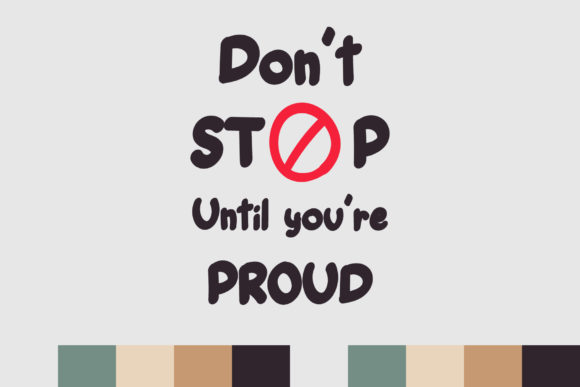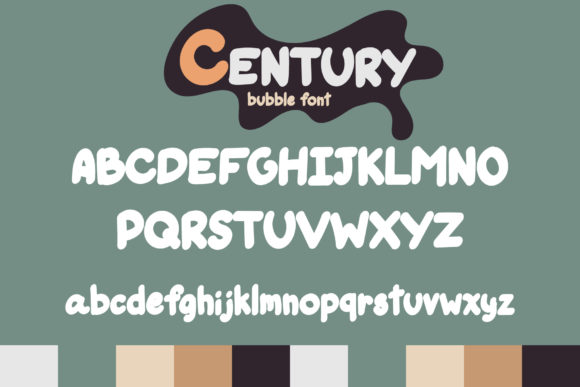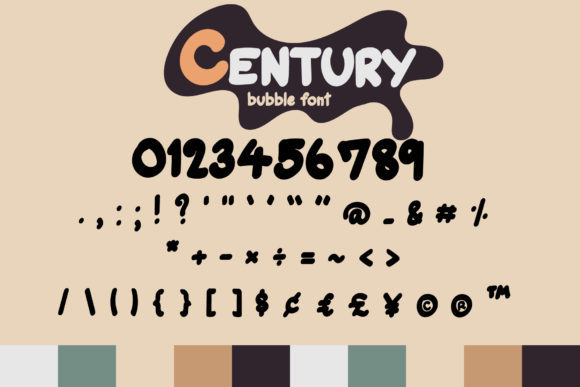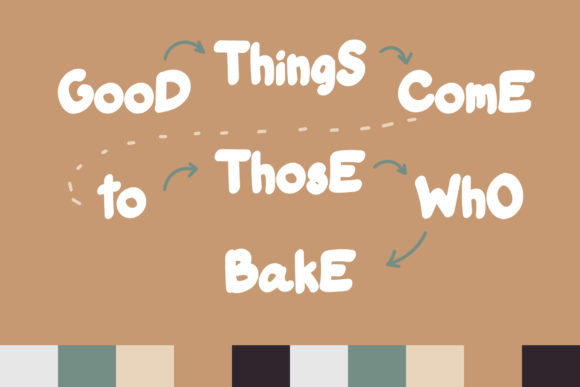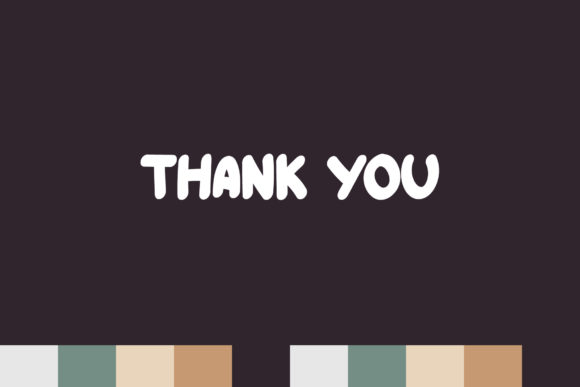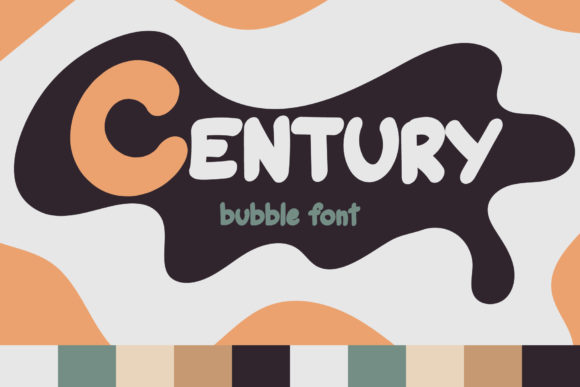
Introducing Century Bubble Font: The Ultimate Bold Handwritten Font
Are you tired of using the same old fonts in your designs? Do you want to add a touch of personality and whimsy to your projects? Look no further than Century Bubble Font, a bold handwritten font that’s sure to become a true favorite. In this article, we’ll dive into the world of Century Bubble Font and explore its features, benefits, and uses.
What is Century Bubble Font?
Century Bubble Font is a carefully handcrafted font that’s designed to make a statement. With its bold, playful, and eye-catching design, this font is perfect for designers and crafters who want to add a touch of fun and personality to their projects. Whether you’re working on a logo, headline, or social media post, Century Bubble Font is sure to turn heads.
Key Features of Century Bubble Font
- Bold and Playful Design: Century Bubble Font features a bold and playful design that’s sure to grab attention. Its unique and quirky style makes it perfect for headlines, titles, and other display text.
- Handcrafted with Love: This font is carefully handcrafted to ensure that every letter, curve, and detail is perfect. The result is a font that’s both beautiful and unique.
- Versatile and Adaptable: Century Bubble Font can be used in a variety of contexts, from busy backgrounds to standalone headlines. Its versatility makes it a great addition to any designer’s toolkit.
- Easy to Read: Despite its bold and playful design, Century Bubble Font is easy to read and understand. This makes it perfect for use in body text, headlines, and other display text.
Benefits of Using Century Bubble Font
So why should you use Century Bubble Font in your designs? Here are just a few benefits of using this amazing font:
- Adds Personality to Your Designs: Century Bubble Font adds a touch of personality and whimsy to your designs, making them stand out from the crowd.
- Increases Engagement: The bold and playful design of Century Bubble Font is sure to grab attention and increase engagement with your audience.
- Perfect for Branding and Marketing: This font is perfect for use in branding and marketing materials, such as logos, business cards, and social media posts.
- Great for Crafters and Designers: Century Bubble Font is a great addition to any designer’s or crafter’s toolkit, providing a unique and versatile font for a variety of projects.
Using Century Bubble Font in Your Designs
So how can you use Century Bubble Font in your designs? Here are a few ideas to get you started:
- Logos and Branding: Use Century Bubble Font to create a bold and eye-catching logo that’s sure to stand out.
- Headlines and Titles: Use this font to add a touch of personality to your headlines and titles.
- Social Media Posts: Use Century Bubble Font to create eye-catching social media posts that grab attention.
- Crafting and DIY Projects: Use this font to add a touch of whimsy and personality to your crafting and DIY projects.
In conclusion, Century Bubble Font is a bold handwritten font that’s sure to become a true favorite. With its unique and playful design, this font is perfect for designers and crafters who want to add a touch of personality and whimsy to their projects. Whether you’re working on a logo, headline, or social media post, Century Bubble Font is sure to turn heads. So why wait? Try Century Bubble Font today and see the difference it can make in your designs!